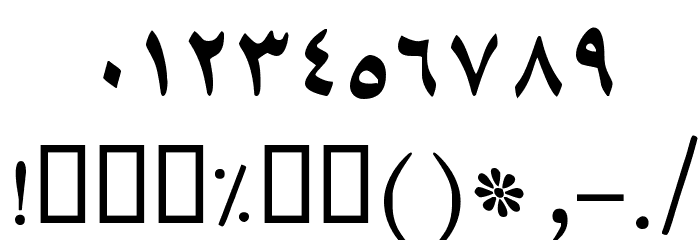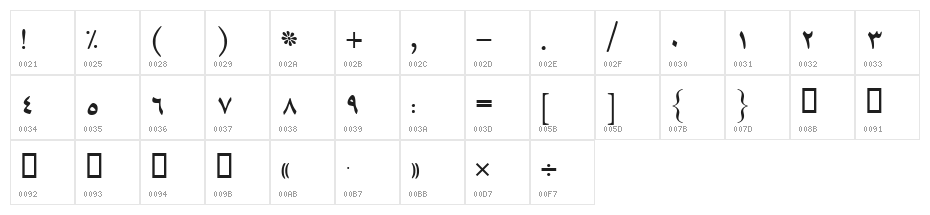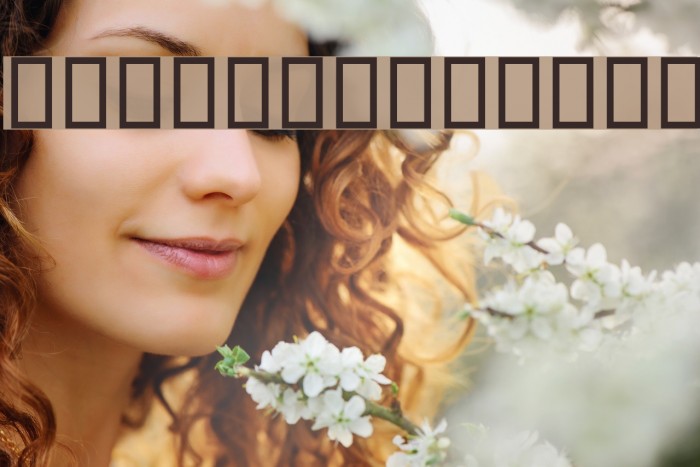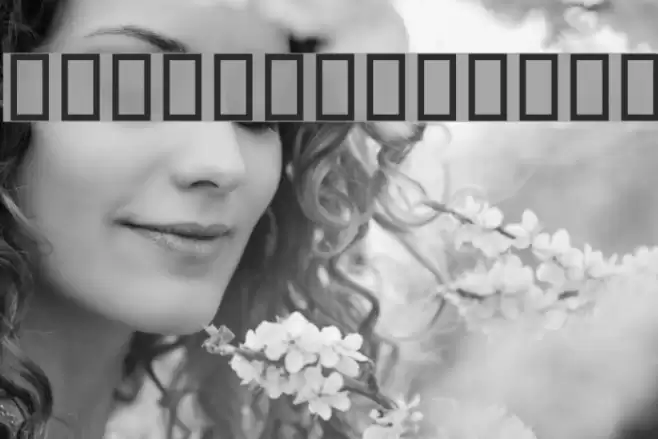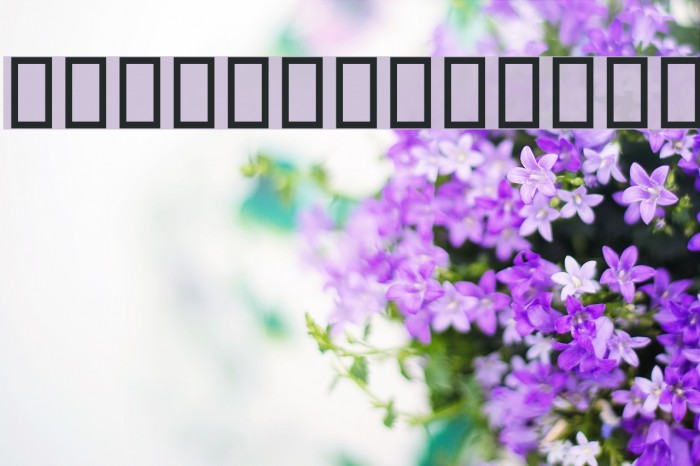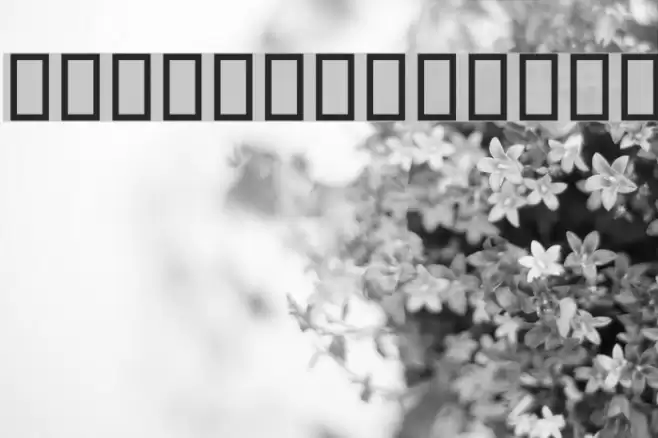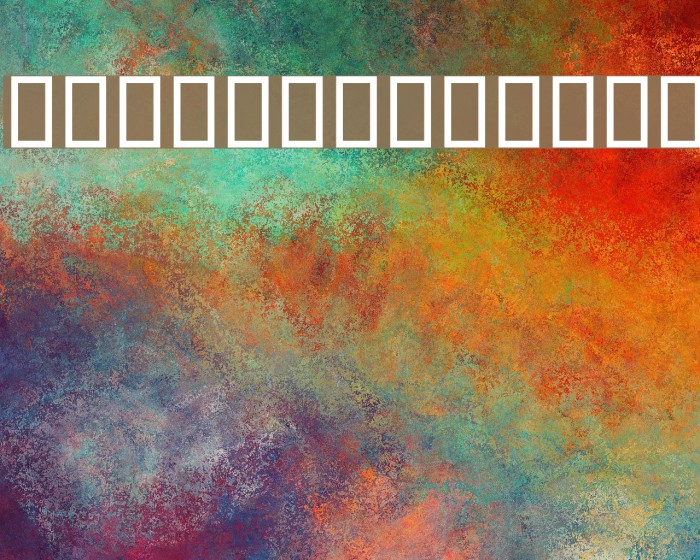
Tehraan Font
Tehraan Description
This font features a unique blend of traditional and modern elements, characterized by its flowing, cursive style that mimics handwritten script. The characters exhibit a fluid motion, with elegant curves and smooth transitions between strokes. The numerals are particularly distinctive, with a calligraphic flair that adds a touch of sophistication. Special characters are designed with attention to detail, maintaining the overall aesthetic harmony. The font's style is versatile, suitable for both formal and creative applications, making it an excellent choice for projects that require a personal touch.
| Proposed Projects | Ideal for wedding invitations, greeting cards, personal branding, and artistic projects. |